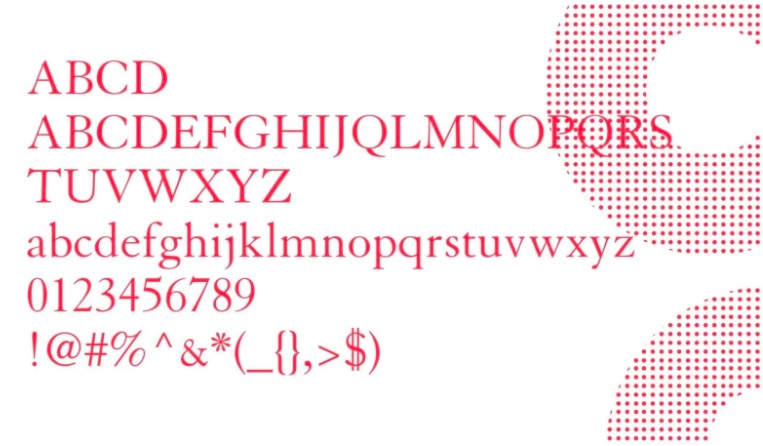
About Gucci Font. This is an elegant Italian premium and luxury fashion brand all over the world. Gucci logo font has a cool & luxury special texture, Gucci’s Logo is based on a font that is very similar to Granjon Roman. This font looks very sophisticated & classy Serif typeface.
Gucci Logo Font